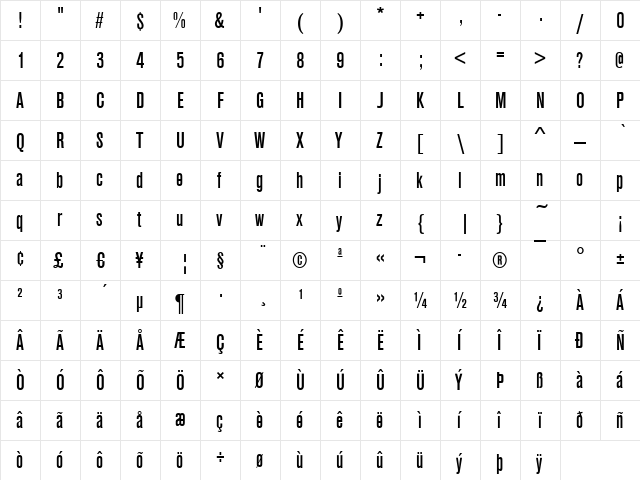
Ancona-Cd Regular
Design Context for Ancona-Cd Typeface
Ancona-Cd offers clean, dependable letterforms without strong stylistic allegiance, making it a practical choice for designers who need flexibility.
Pro Tip: Pair Ancona-Cd with a font of contrasting weight or personality to build a more expressive typographic hierarchy.